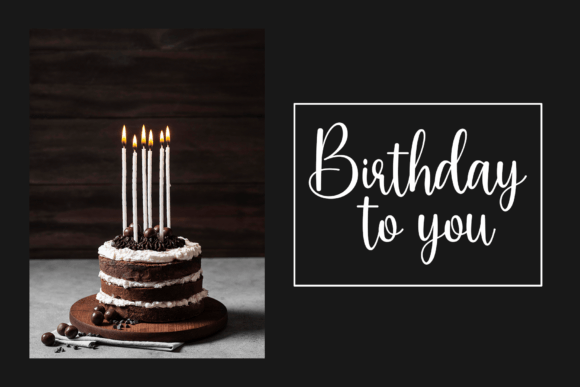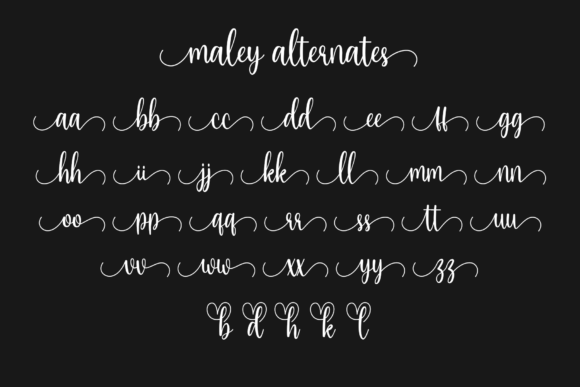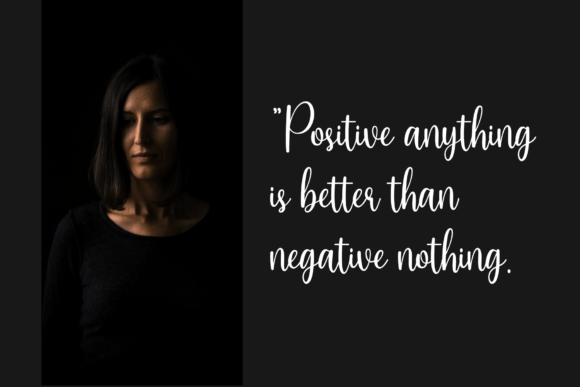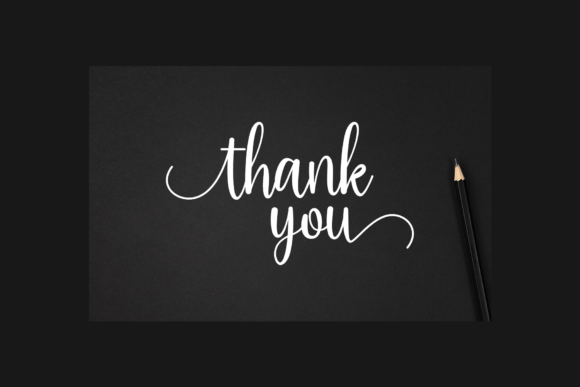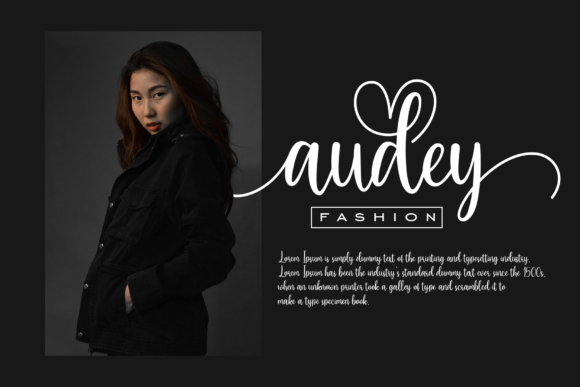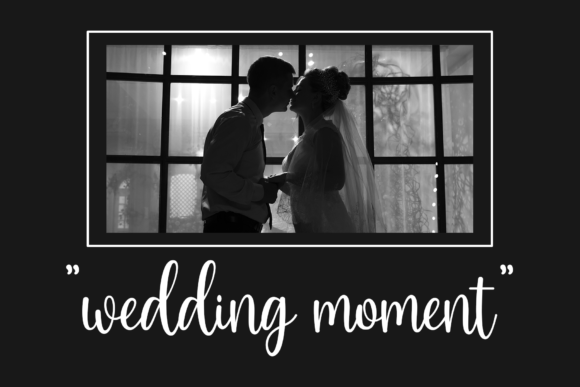
Introduction to Maley Font
Have you ever found yourself scrolling through a design inspiration board, and suddenly a beautiful script font stops you in your tracks? That’s exactly what happened to me when I stumbled upon the stunning Maley Font. Its elegant and flowing characters seem to dance across the page, exuding love and warmth. I couldn’t wait to learn more about this gorgeous font and how it could elevate my creative projects.
As a designer, I know how valuable it is to have a reliable design resource like the Maley Font in your toolkit. With its free download option and transparent background, this font is perfect for adding a touch of sophistication to any project. Whether you’re working on a wedding invitation, a birthday card, or a beauty brand’s marketing materials, the Maley Font is sure to bring a high-quality, elegant look to your designs.
Key Features of Maley Font
- High-quality design: The Maley Font is a well-crafted, high-quality design resource ideal for creative projects.
- Large character set: The Maley Font includes a large character set, including uppercase and lowercase letters, numbers, and punctuation marks.
- Unique aesthetic: The Maley Font features a unique, modern aesthetic that sets it apart from other fonts in its class.
Honest Review: Maley Font
As a designer, I’m always on the lookout for new and exciting fonts to add to my design resource library. The Maley Font caught my eye recently, and I was eager to give it a try.
One of the things that stood out to me about the Maley Font is its versatility. It’s a beautiful, high-quality font that works well for both digital and print projects. I was impressed by the level of detail and the smooth lines that make it a great choice for logos, branding, and even signage.
Here are some of the things that I like about the Maley Font:
Of course, no font is perfect, and the Maley Font has some limitations:
- ⚠️ Limited character set, which may not be suitable for extended text projects
Overall, I’m impressed with the Maley Font and would definitely recommend it to designers looking for a high-quality, versatile font. With its free download and transparent background, it’s a great addition to any design library.
Tips for Getting the Most Out of Maley Font
To get the most out of the Maley Font, experiment with different font sizes, colors, and combinations to find the perfect look for your design. Additionally, use the font in conjunction with other design elements to create a cohesive and visually appealing design.
The Maley Font is ideal for a variety of creative projects, including social media graphics, business presentations, and marketing materials. Its high-quality design and transparent background make it a versatile and practical design resource.